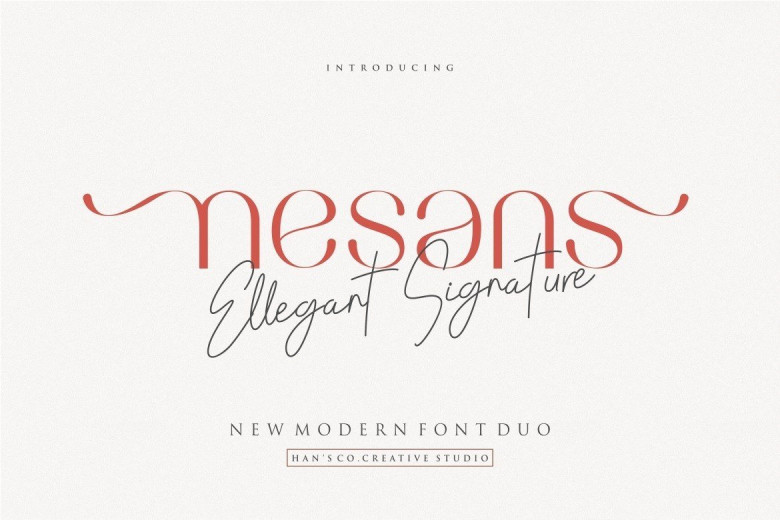
Nesans Sans Serif Font
Nesans Font this is a sans serif type font, this font is suitable for use with premium, elegant, luxury needs. such as hotels, salons, restaurants, cafes and others. make everything beautiful and charming with Nesans Font.